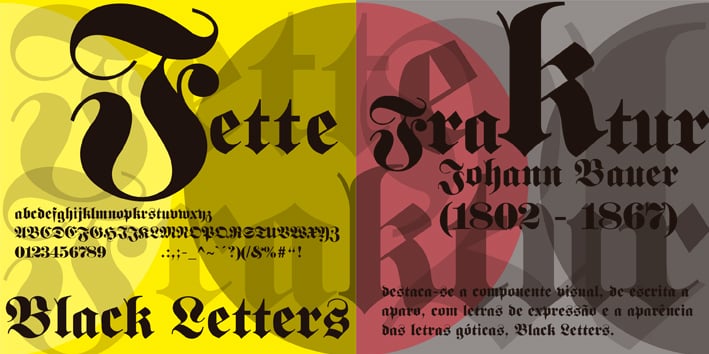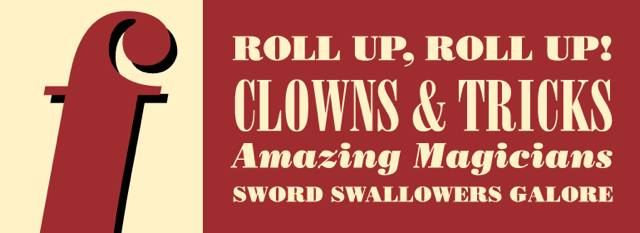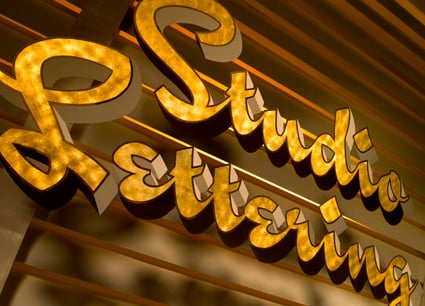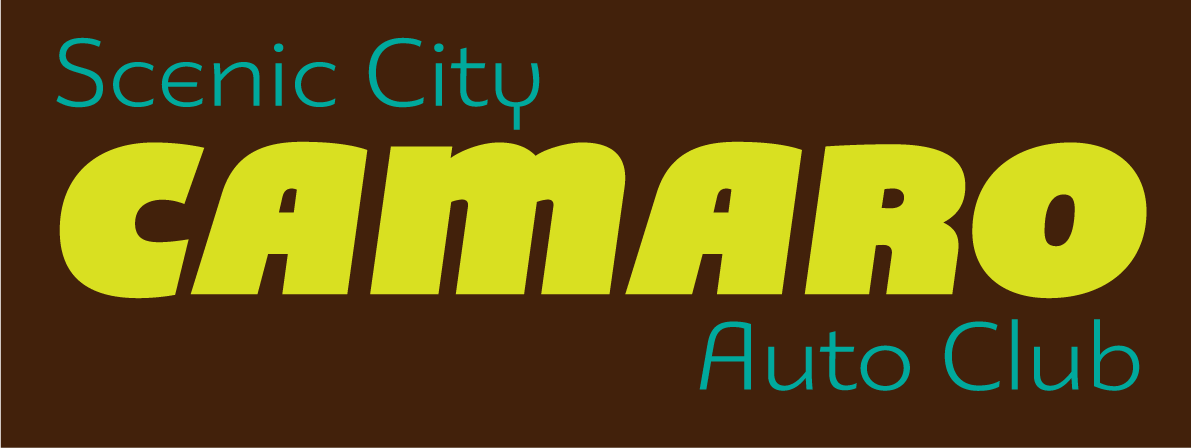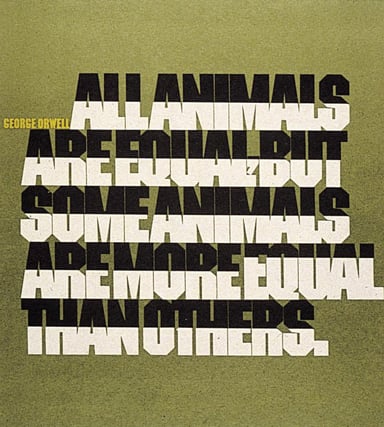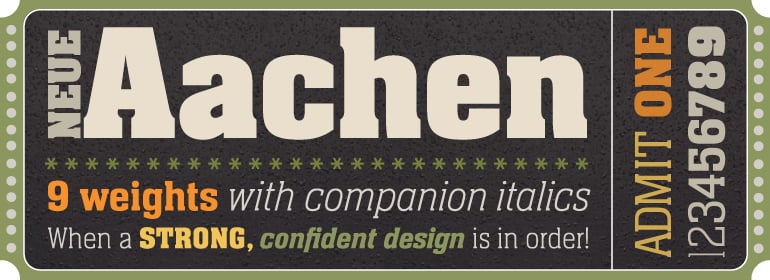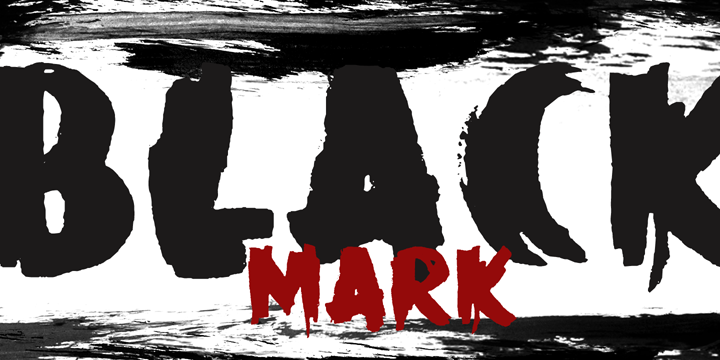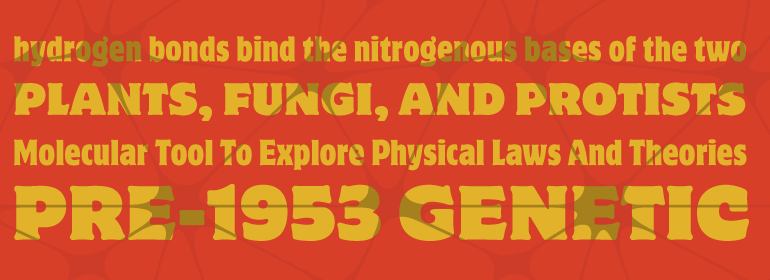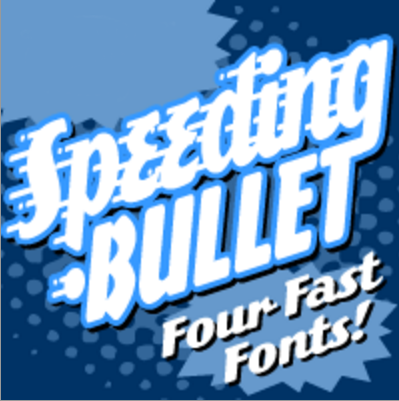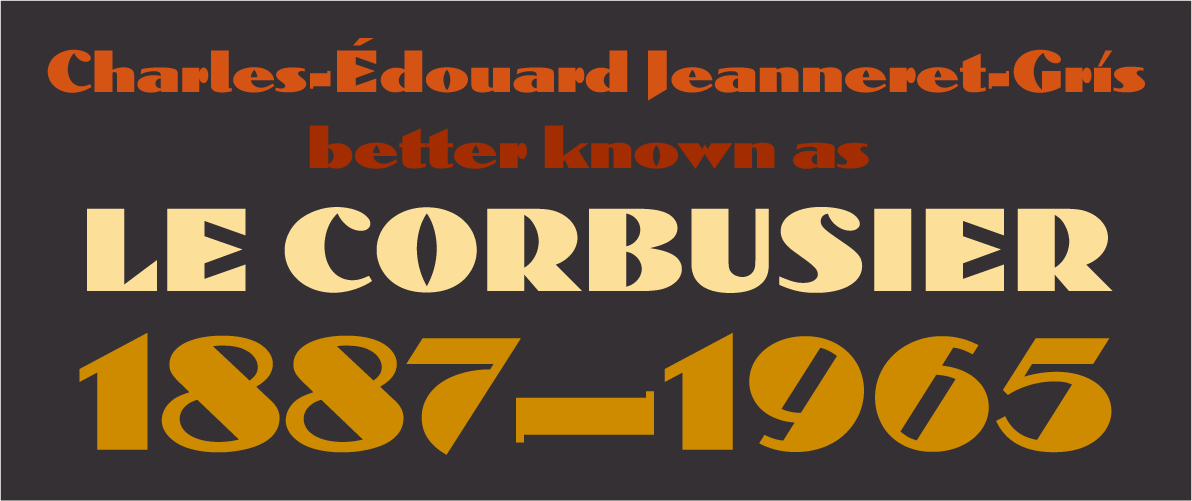
13 Fonts From the Dark Side
Don’t be afraid of the dark! Use these fonts for creating distinctive, impactful impressions with type.
There are countless design briefs that call for heavyweight, assertive fonts. These hefty designs, which are usually reserved for display usage, make a powerful statement while attracting the viewer’s attention with ease. While many of these substantial typeface designs are serious in tone, others can be friendly, ghoulish, and even humorous. I have selected thirteen of my favorite “fonts from the dark side” to share with you. They include black weights that are part of large families as well as single-weight styles. Some are current releases, while others are vintage, historic, or just timeless designs that never get old. But they all make a statement when used appropriately.
Fette Fraktur
If you are looking for a gothic blackletter typeface, you can’t get any better than Fette Fraktur. Originally designed in 1850 by the German punchcutter Johann Christian Bauer and based on the Fraktur type of blackletter faces, the digital version of Fette Fraktur is derived from one first published by the D Stempel AG foundry in 1908.
This typeface, whose name translates to “broken bold,” was originally intended for advertisements, but is currently in favor for editorial use: music, fashion, and other style-based publications or articles. Fette Fraktur is also seen in use for menus, signage, logos, book titles, and posters with European or Germanic feel, but can also be used when a “goth” or dark feel is desired. The glyphs can be enlarged, rotated, and used to create decorative borders and other type-as-image applications. The caps are great for initial letters, while the entire alphabet is a popular choice for tattoos. Note that some of the caps are not very readable and may be confused with other characters.
Mostra Nuova
Mostra Nuova, designed by Mark Simonson, is based on a style of lettering often seen on Italian Art Deco posters and advertising of the 1930s. Although my favorite weight is the Black because of its stylish and ridiculously dense appearance, the family contains five other weights, beginning with an almost invisible, dramatic Thin, and stepping up in weight from there.
The Black weight is great for headlines and usages where a very dramatic, stylish vintage feel is called for. The lighter weights can be used for smaller-sized text, making the family practical for a range of uses—more so than others that are “just” display type. Although Mostra Nuova Black looks best when used in all caps, the addition of lowercase (as well as the five other weights), make for a much more practical family than a single-weight display font. This type family contains many alternate characters representing commonly found variations in Italian Art Deco lettering. Note: Mostra Nuova is an expanded and enhanced version of the previously released Mostra from 2001.
Poster Bodoni
Poster Bodoni (aka Bodoni Poster) was inspired by the work of Giambattista Bodoni (1740–1813) and supervised by Chauncey Griffith at Mergenthaler in 1929. This Bodoni font is distinguished by a very heavy yet graceful appearance. The family contains a companion italic as well as an upright condensed version.
Poster Bodoni displays characteristics of the advertisement fonts of the first half of the 20th century. The typeface was most often used for posters and signage, eventually including neon signs. Working with this typestyle requires care, as the strong emphasis of the vertical strokes and the marked contrast between the fine and thick lines lessens Bodoni’s legibility, making it perform best when used at larger sizes.
Studio Slant
This chunky, connecting backslanted script is a product of House Industries. It is a member of the Studio Lettering family, which contains two other script faces, as well as a series of funky shapes. Based on the kind of hand lettering used for advertisements, editorials, and package designs in the pre-digital age, Studio Slant revives the spirit of a bygone trade by gracefully combining classic techniques with 21st-century technology. It comes with many alternate characters, including a set of super-sized uppercase letters for greater impact. I love this font for its bold, yet stylish, nostalgic appearance.
Fervent Black
Designed by James Montalbano of Terminal Design, Fervent Black, in both upright and italic versions, is brimming with personality and presence. The Black weight is part of a 10-weight family with companion italics, making it practical for both text and display.
Some non-conforming design features of Fervent include its epsilon-like lowercase e, as well as the shapes of the a, m, n, and k lowercase. The upright forms borrow heavily from the italic shapes, giving the roman a sense of motion. Alternate versions of the a, e, g, r, and s provide the designer with many options for customization.
Montalbano says, “I’ve always been fond of really black fonts and worked to keep the details (i.e., epsilon e) in the heaviest weights. These things tend to develop a life of their own, and the remaining details just emerged. I start, and somehow the type design finishes itself. I’m usually surprised how it turns out.”
ITC Machine Bold
This all-cap display typeface was designed by Tom Carnase and Ronne Bonder in 1970. ITC Machine Bold became popularized by noted designer and typographer Herb Lubalin, who frequently used it for posters, book covers, packaging, and signage. Although over 45 years old, this brawny, geometric typeface is timeless, and still a great choice when a strong, authoritative feel is appropriate. It does have a companion (Regular) weight, but the Bold has a much more dramatic appearance. For the most impact, Machine Bold should be used with very tight letter spacing and line spacing, much like Lubalin’s poster.